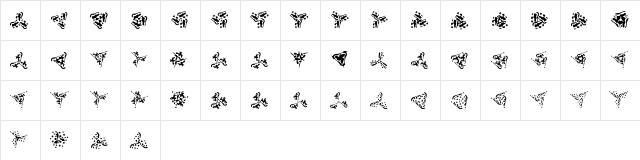
Trinsomnia Regular
Design Context for Trinsomnia Typeface
Trinsomnia is a composed and adaptable typeface that performs quietly and consistently across a wide range of design contexts.